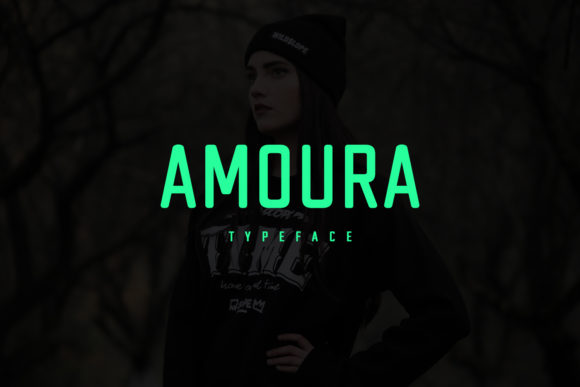
Introducing the Amoura Font, a Sans Serif Masterpiece for Unsurpassed Display Excellence
Immerse yourself in the realm of digital artistry with Amoura, a font that captivates and compels. Designed by the maestros at Design Stag, this Sans Serif masterpiece is a testament to the power of typography in evoking emotions and capturing attention. Amoura's clean lines, generous curves, and striking presence make it the perfect choice for creating logos, promotional content, and marketing graphics that leave a lasting impression.
Journey into a world of limitless possibilities with Amoura, where creativity thrives and audiences are mesmerized. Let your imagination soar as you craft logos that embody your brand's essence, promotional content that resonates with your target audience, and marketing graphics that ignite conversations. Amoura is your gateway to a world of visual storytelling, where every letter, every word, and every design speaks volumes.
Unlock the true potential of your visual creations with Amoura, the font that transforms the ordinary into the extraordinary. Its versatility knows no bounds, adapting seamlessly to a myriad of digital landscapes. Whether you're crafting captivating headlines, weaving enchanting tales, or designing interfaces that exude elegance, Amoura is your trusted companion.
Dare to stand out from the digital noise with Amoura, the font that commands attention and fuels engagement. Its bold strokes and confident stance make it impossible to ignore, ensuring that your messages and designs rise above the clutter and resonate with your audience. Experience the thrill of creating visuals that captivate and compel, leaving an imprint on the hearts and minds of those who encounter them.
With Amoura as your creative ally, you possess the power to transform your digital presence. Craft unforgettable logos that embody your brand's identity, design marketing graphics that drive conversions, and create promotional content that ignites imaginations. Embrace the transformative power of Amoura and witness the remarkable impact it brings to your creative endeavors.